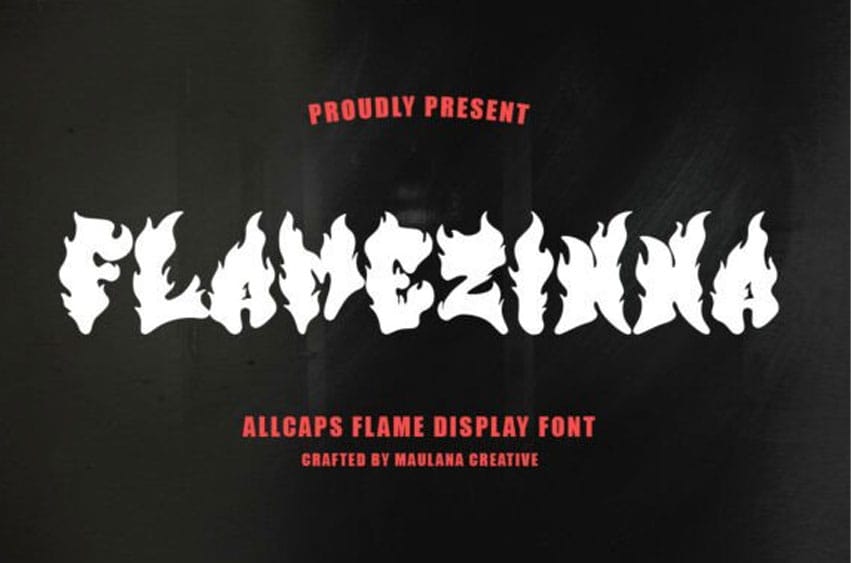
Flamezinna Font is a bold and blazing all-caps display font that ignites your designs with intense energy. Featuring letterforms that flicker with flame-inspired detailing, this font is perfect for rock band logos, extreme sports branding, Halloween posters, edgy apparel, and more.
Flamezinna delivers high impact and unforgettable flair wherever it’s used—ideal for creators who want their typography to burn bright and fierce.